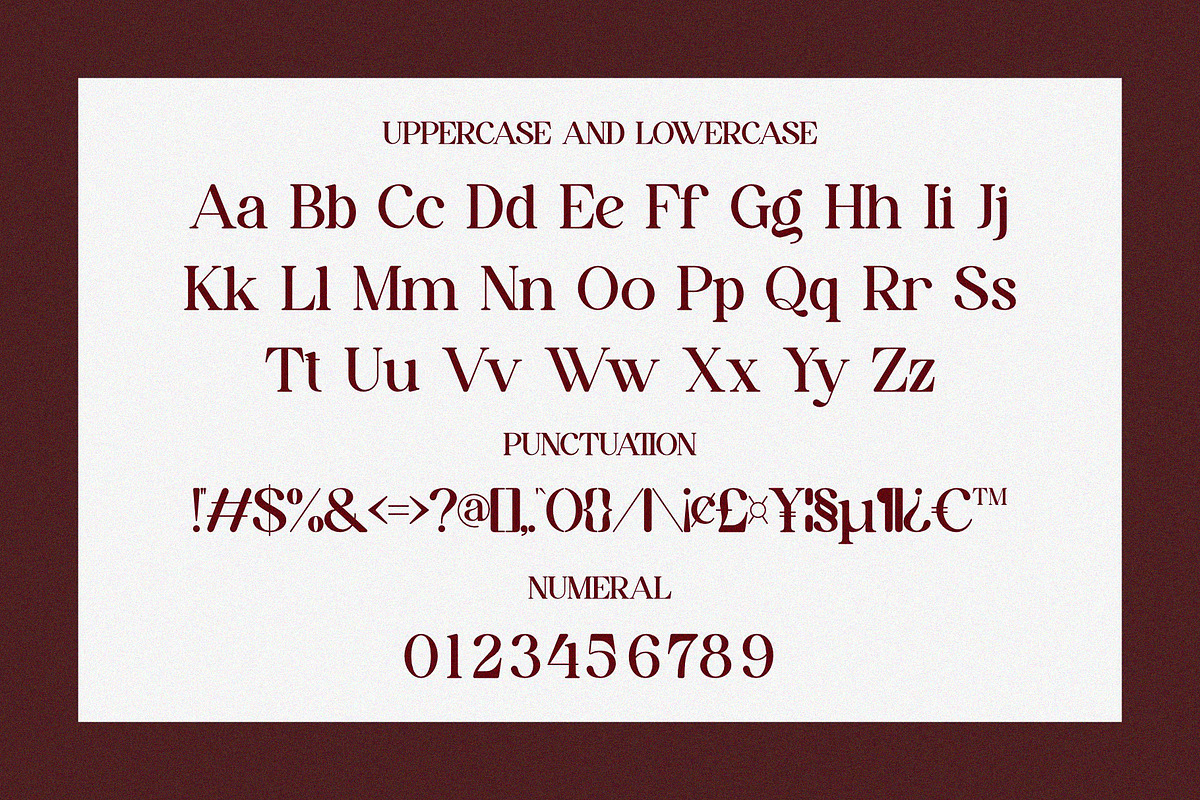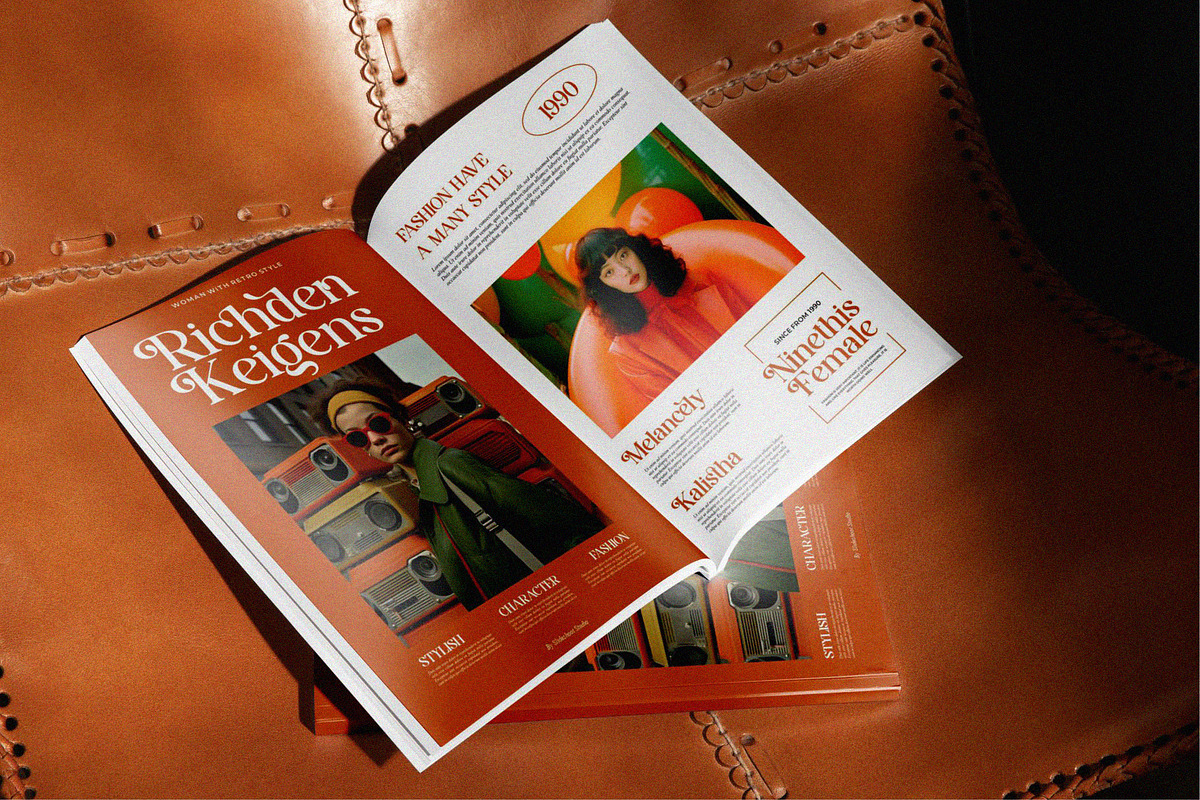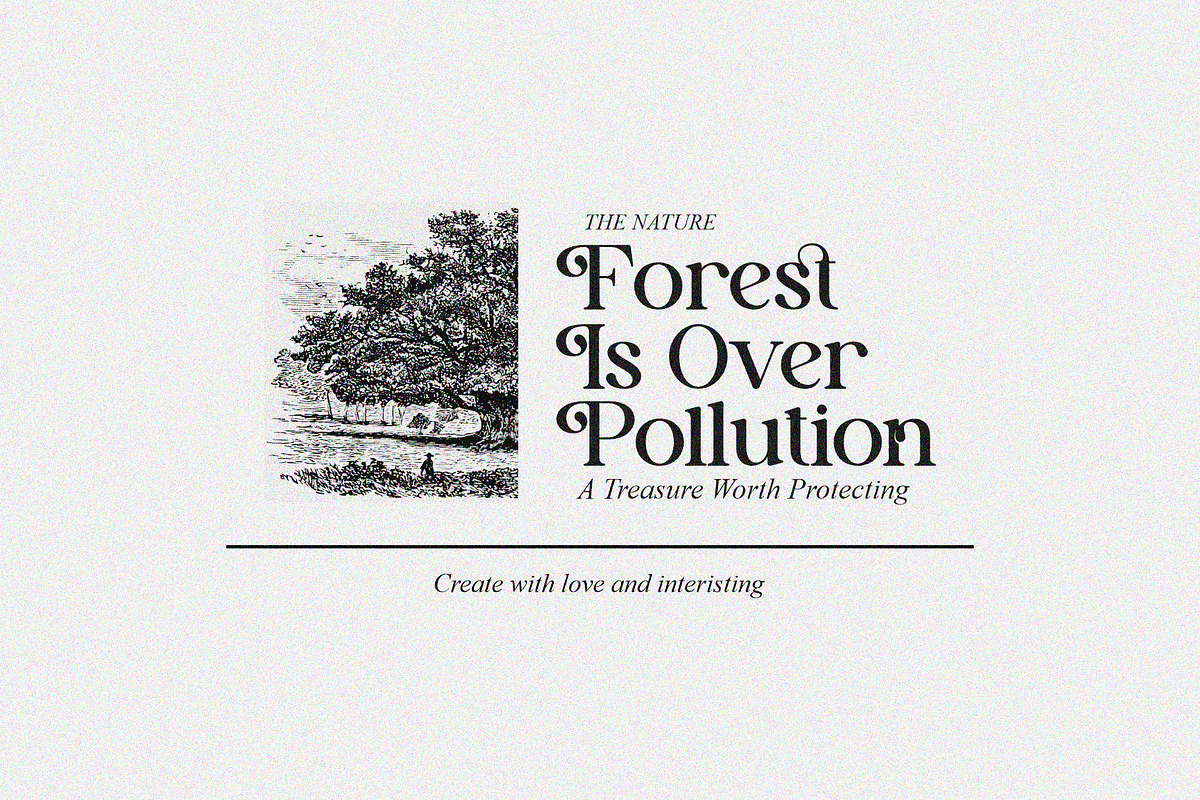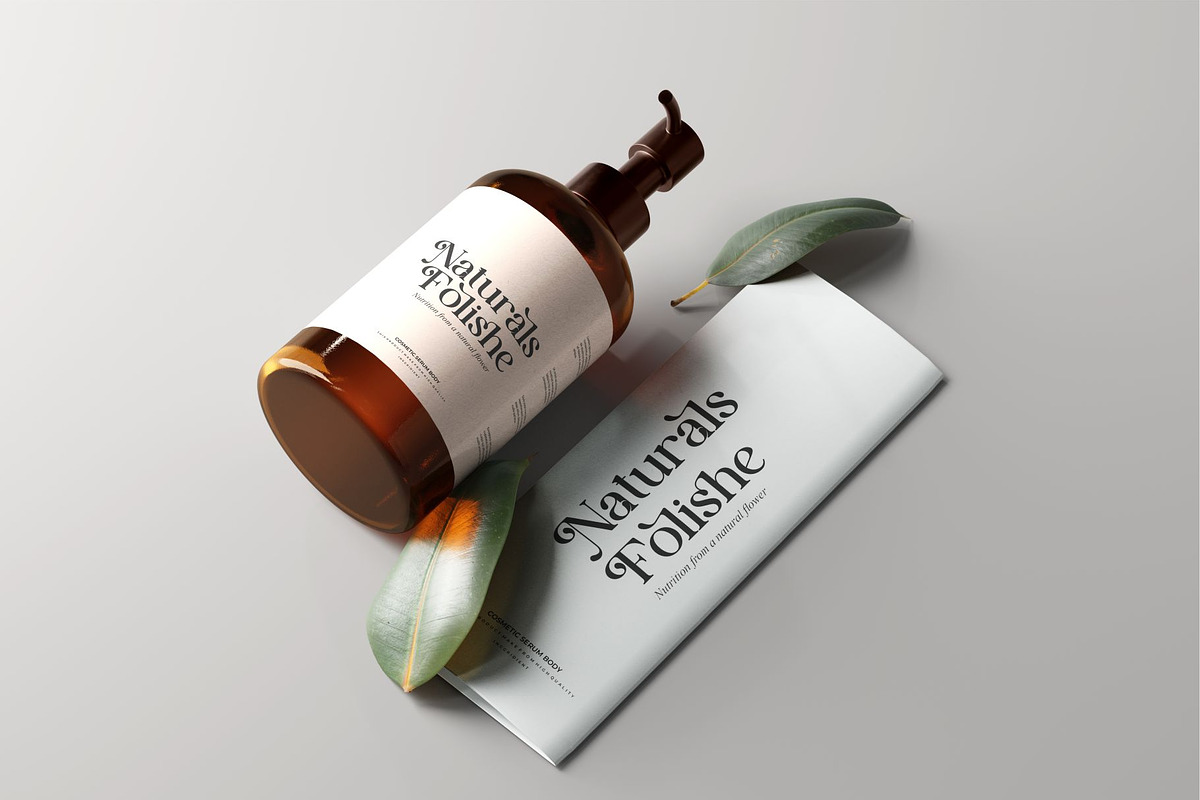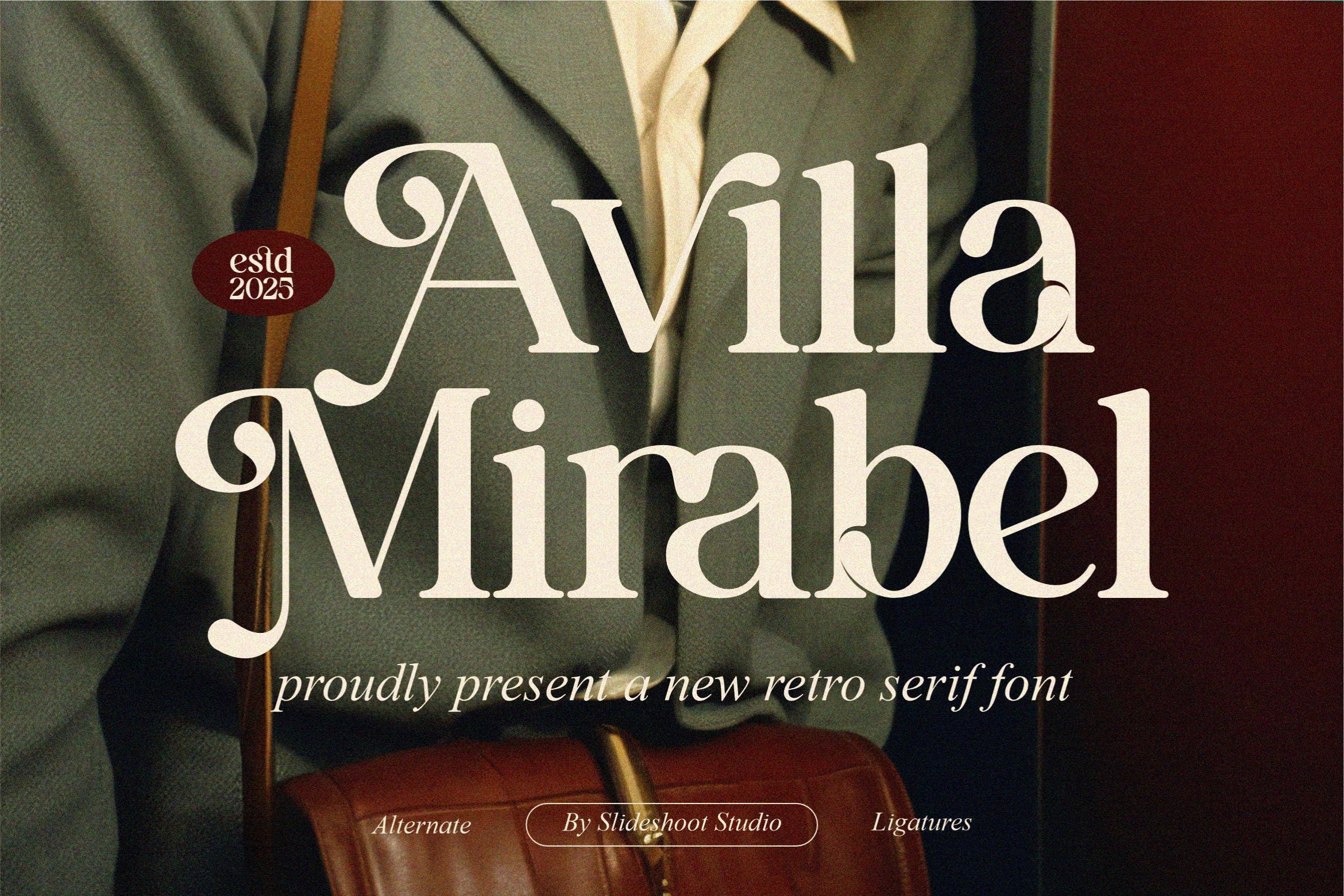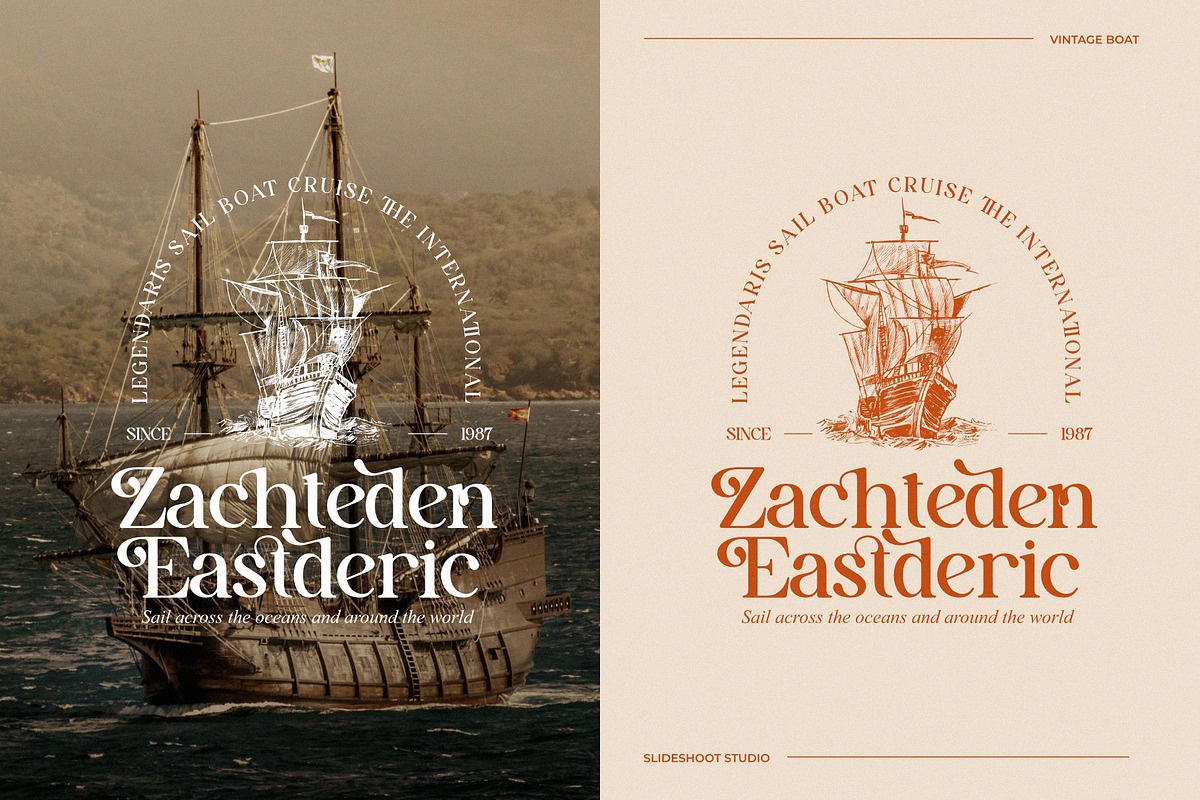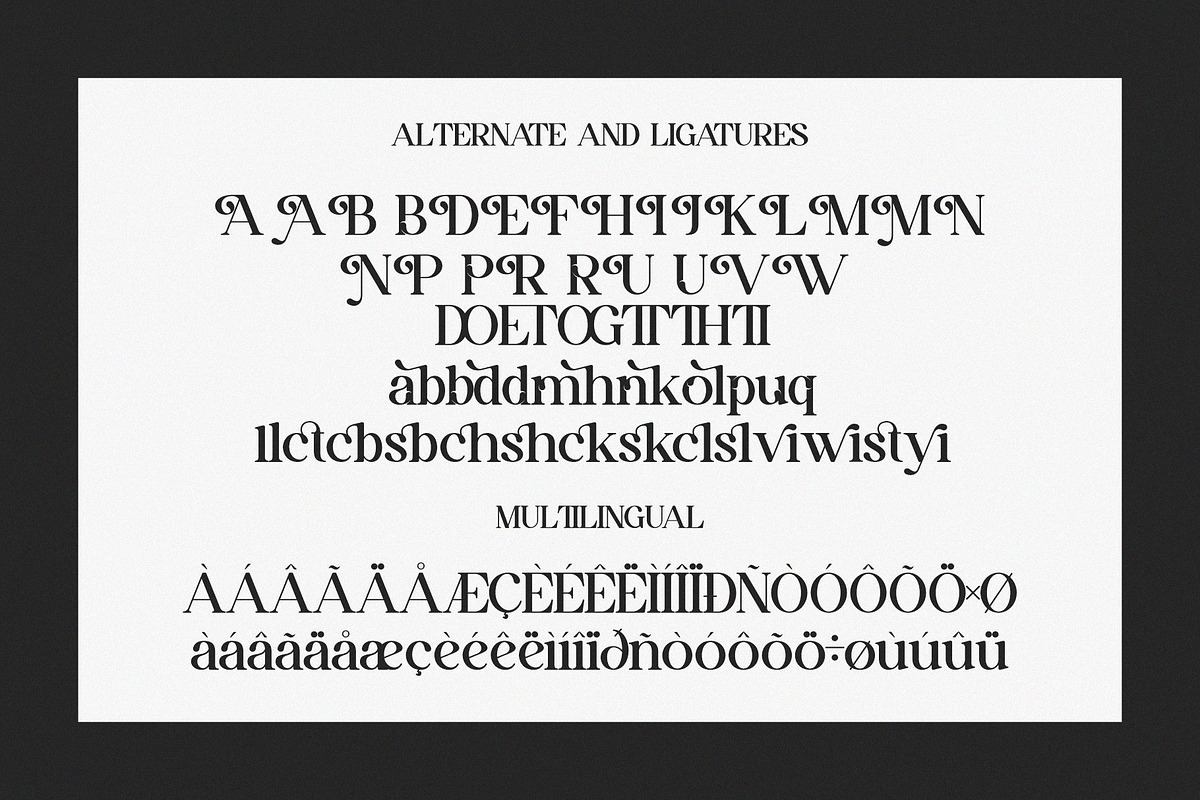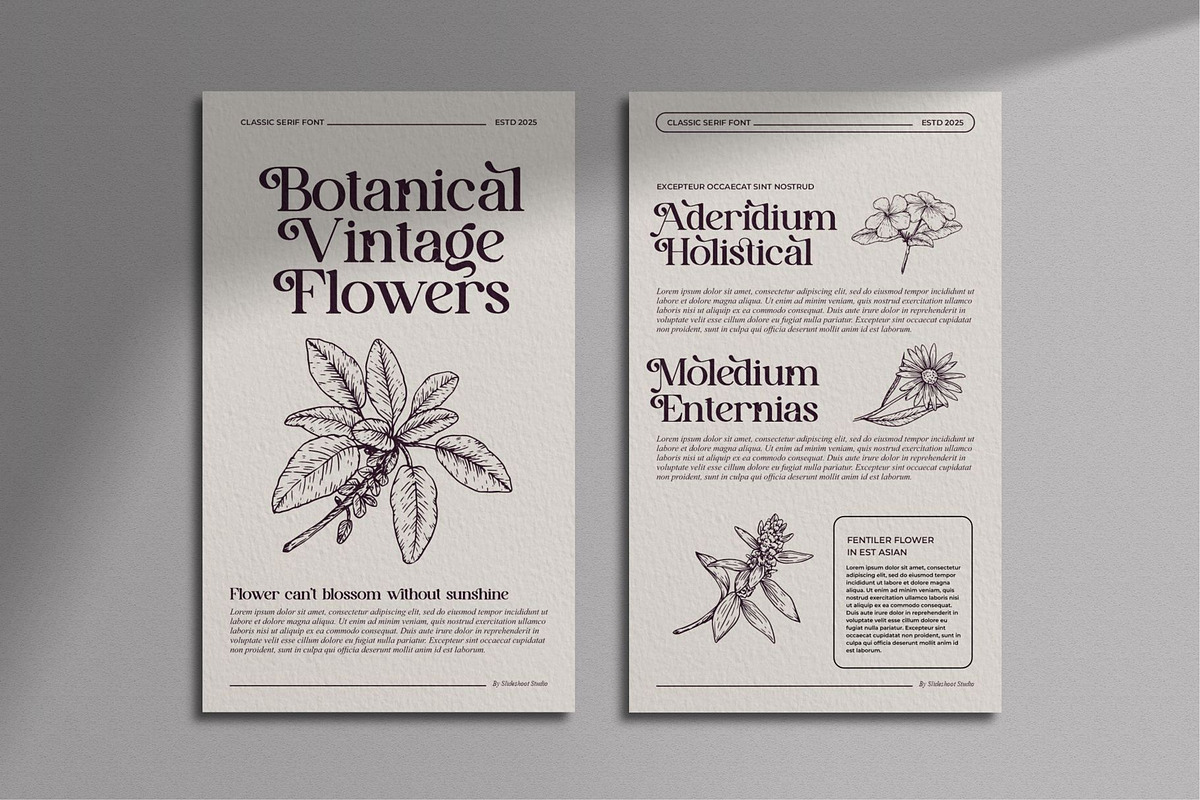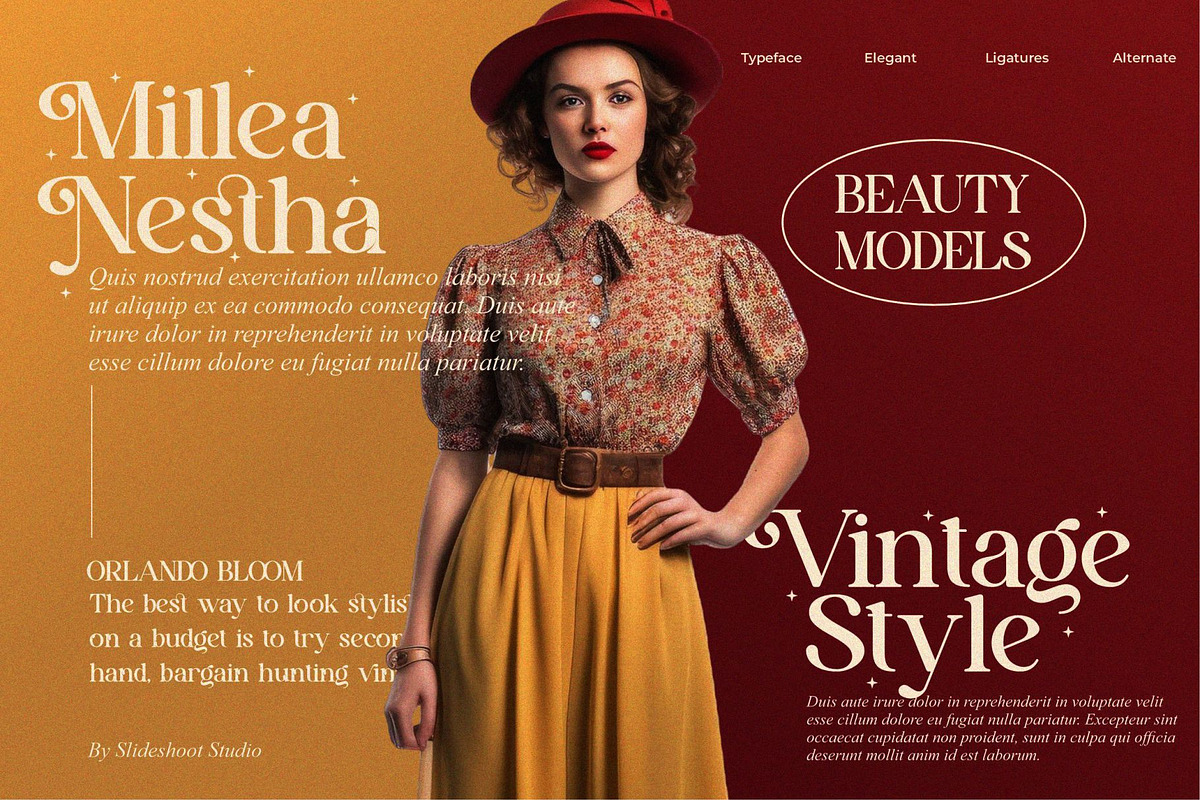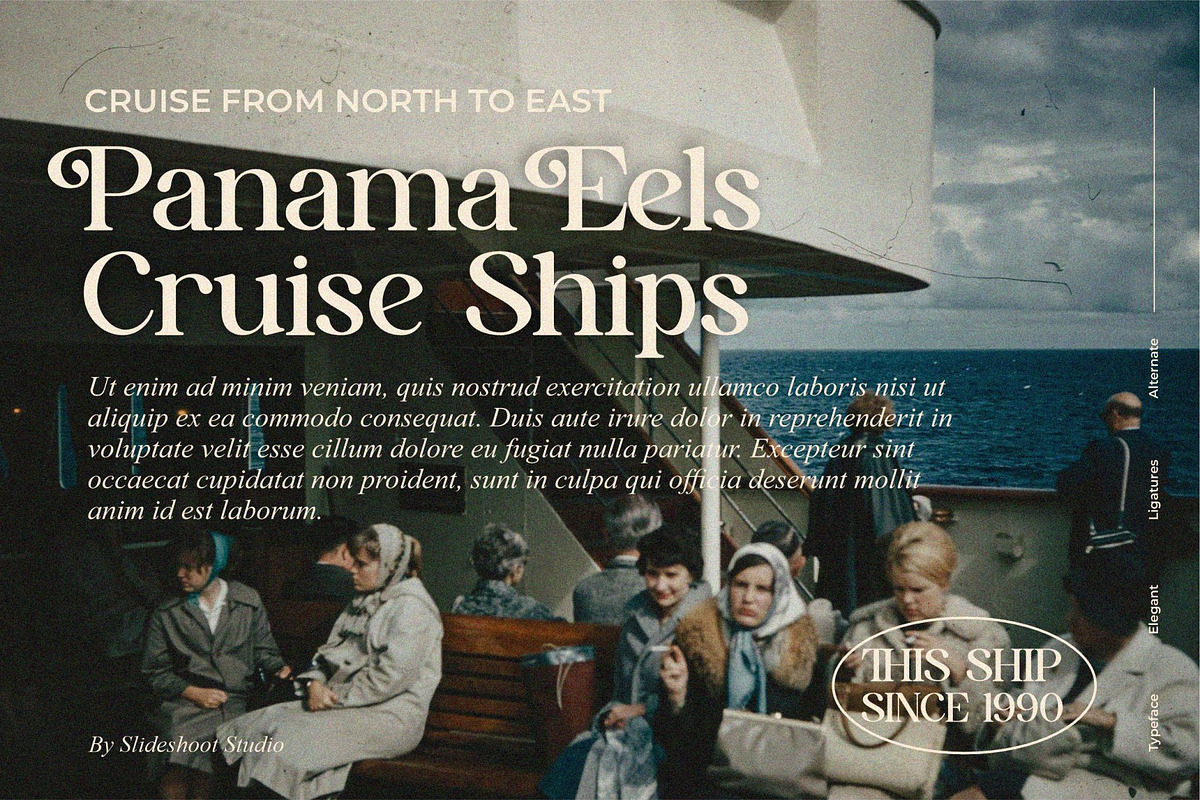
Avilla Mirabel || Vintage Serif Font
Avilla Mirabel Serif is a vintage font type for all branding and logo designs. This vintage Serif font has a beautiful character. This font is suitable for invitation card designs, cool logos, movie titles, movie names, business cards, book titles, brand names, and various other designs. Avilla Mirabel Serif is a smooth serif font that exudes sophistication and the moment. Its stylish alterations and ligatures make this font a perfect partner for any project.